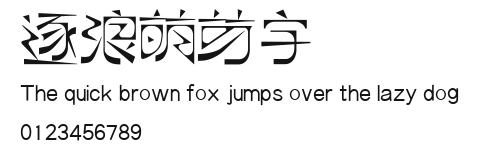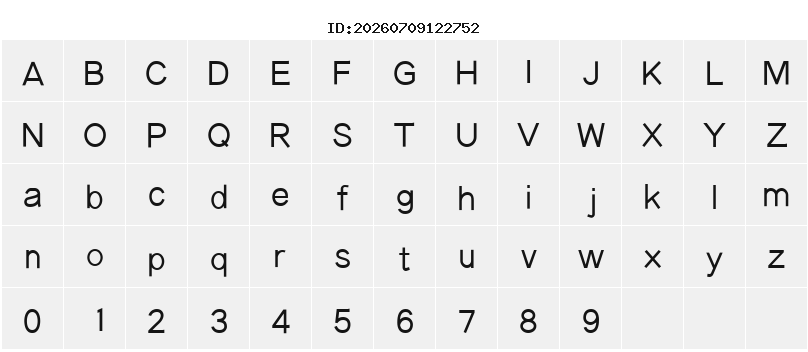
逐浪萌芽字 Preview
• Font Name: 逐浪萌芽字
• Font ID: ZoomlaMengyas-A080
• Full Font Name: 逐浪萌芽字
• Version: Version1.00 20211011
• PostScript Name: ZoomlaMengyas-A080
• Character Count: 8822
• Designer: Zoomla!逐浪CMS团队
逐浪萌芽字.ttf is a modern, elegant sans-serif font designed for ultimate readability and visual harmony. Perfect for branding, headlines, web design, and print materials.